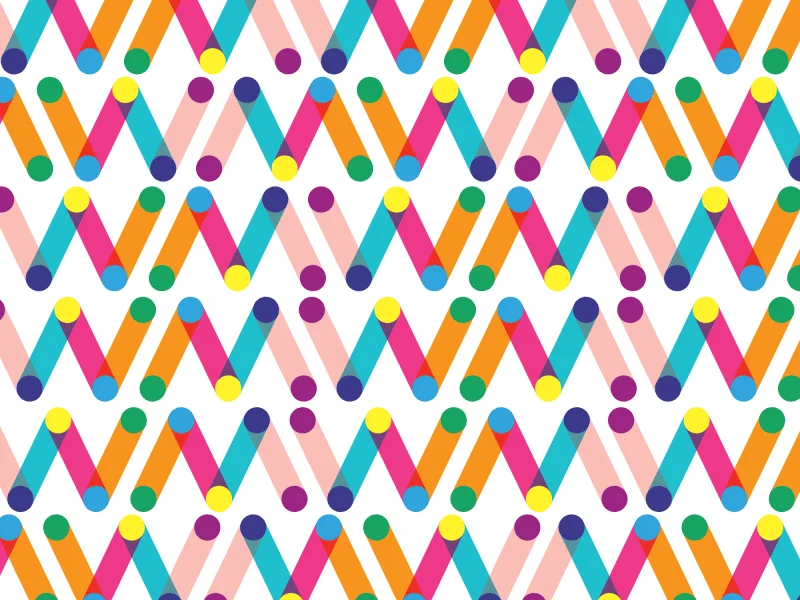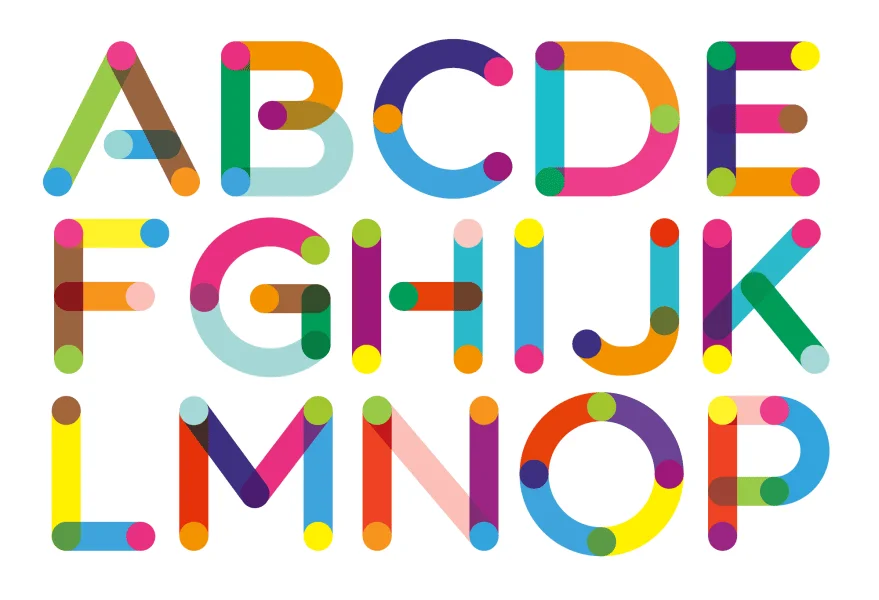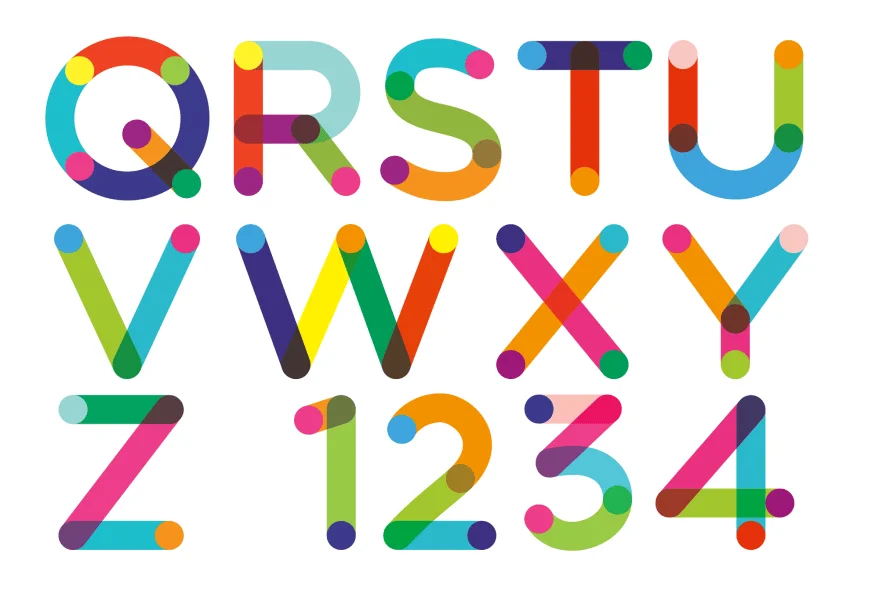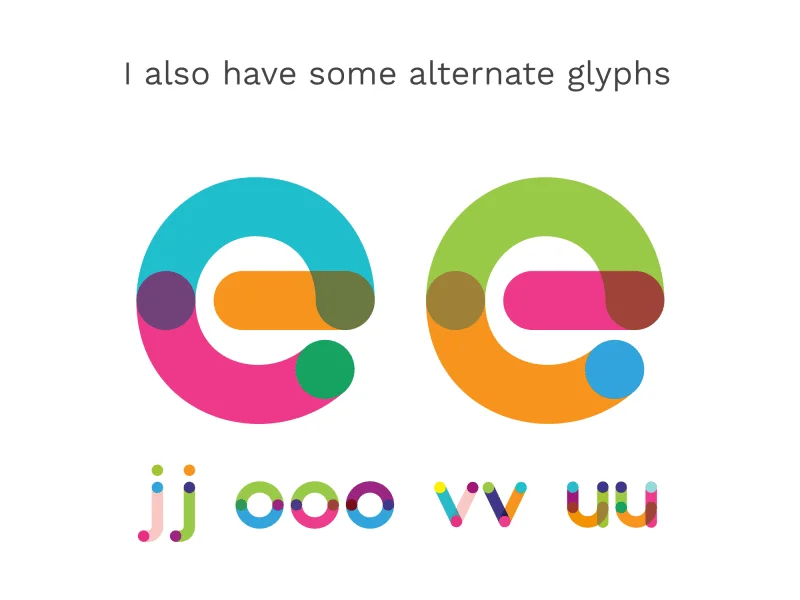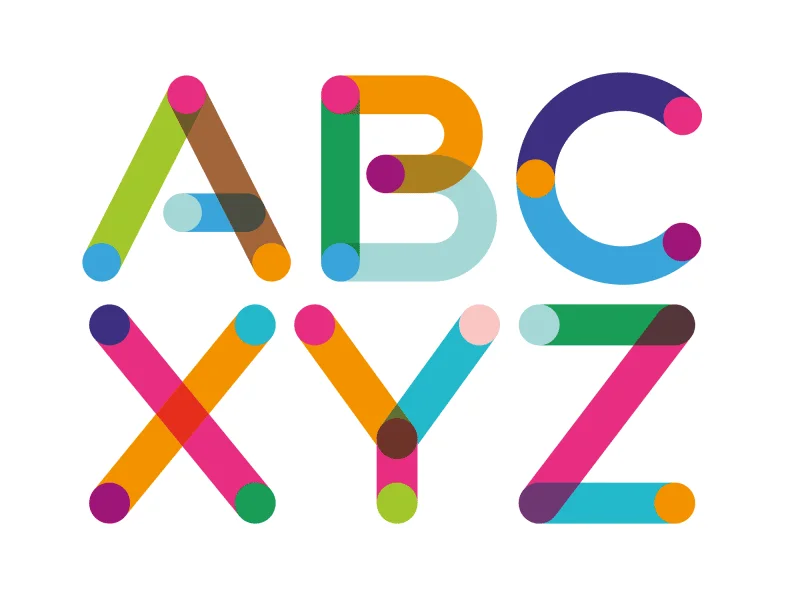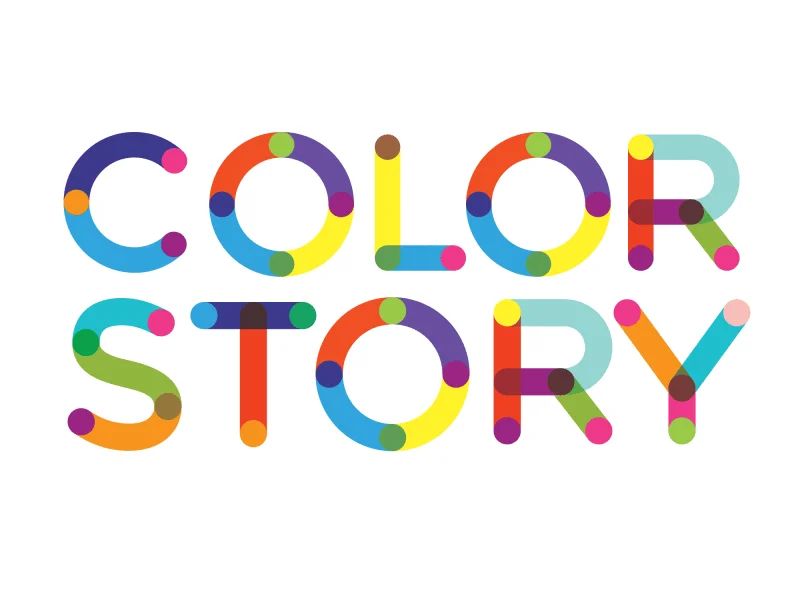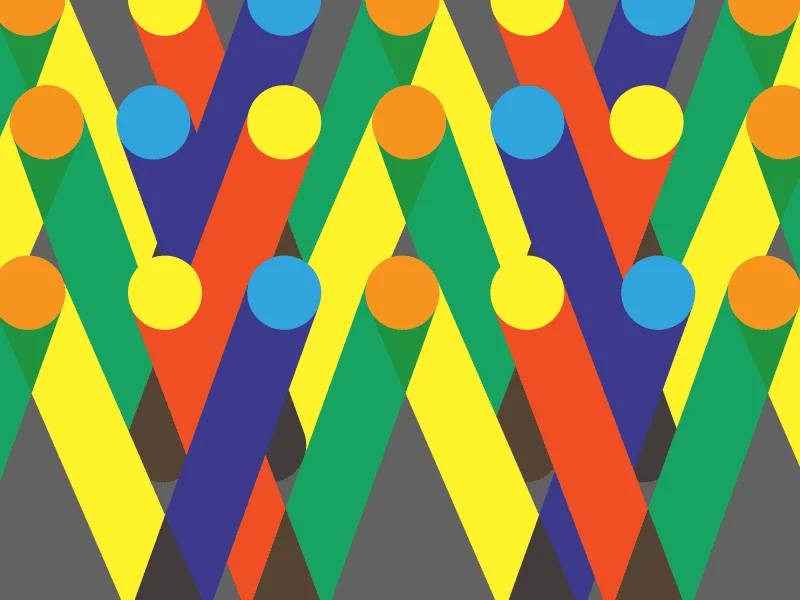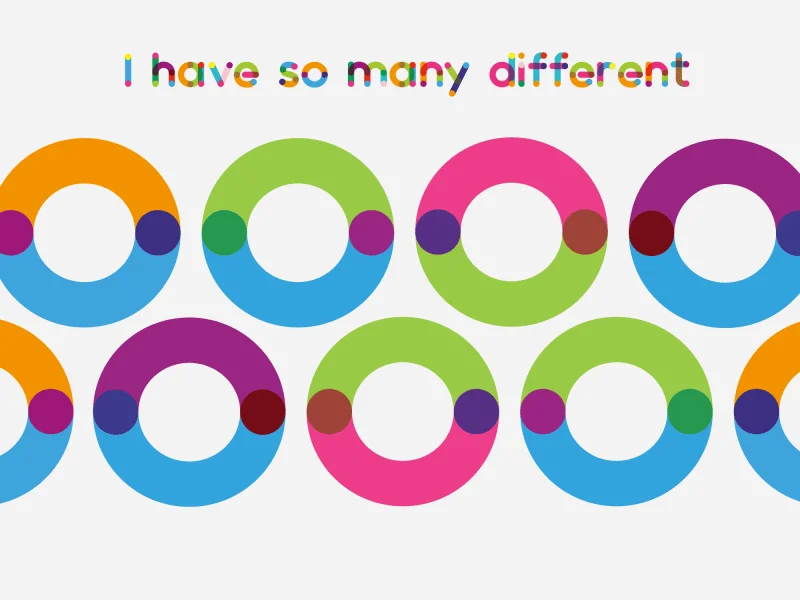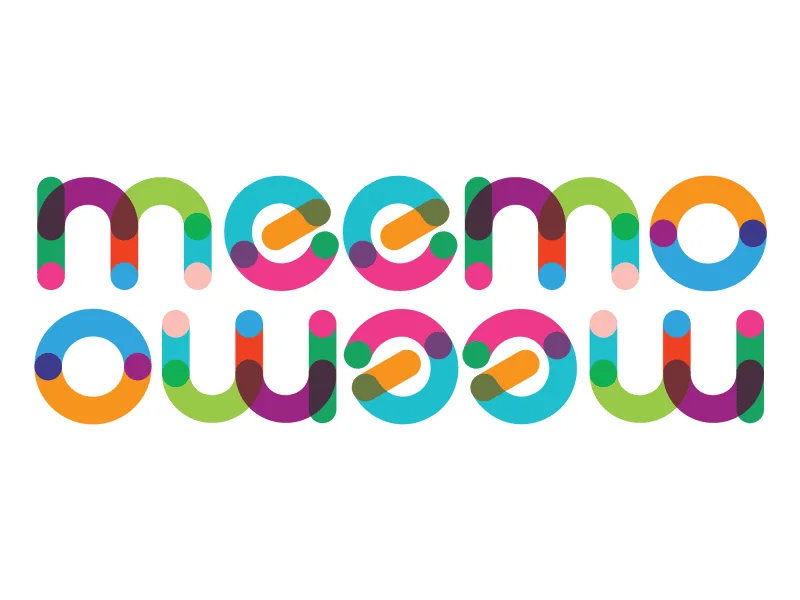
For now ColorTube supports Basic Latin character set. In the future I’m planning to add accented character and diacritics, as well as Cyrillic.
You may also notice that not all endings or crossings are following the “color overlay” logic, but that’s because I’ve just made some changes to make it more appealing, at least to me.
- March 2018: Updated and improved kerning, added alternate glyphs